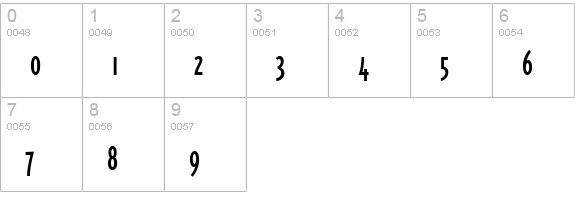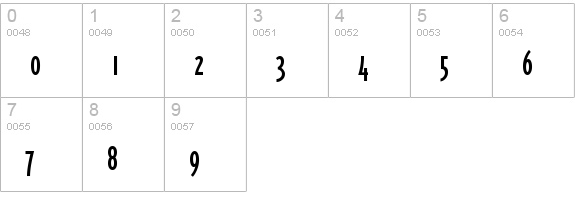
TriplexConRegOldstyle Regular Font Details
TriplexConRegOldstyle Regular is the standard, neutral variant in the TriplexConRegOldstyle typeface family \xE2\x80\x94 well suited to general body text, paragraphs, and standard typographic work.
TriplexConRegOldstyle Regular is a stunning and versatile font that adds a touch of elegance and sophistication to any design project. Its classic and timeless design makes it perfect for a variety of applications, including branding, editorial design, packaging, and more. The TriplexConRegOldstyle Regular font features a balanced mix of clean lines and subtle curves, resulting in a harmonious and balanced typeface. The letterforms are carefully crafted, with attention to detail and precision, ensuring legibility and readability across various sizes and mediums. One of the most appealing aspects of TriplexConRegOldstyle Regular is that it is free! Yes, you read that right. This exceptional font is freely available to download at FontsMarket.com. Whether you are a professional designer or an aspiring creative, you can access this font without any cost, making it accessible to everyone. The generous availability of TriplexConRegOldstyle Regular font allows you to explore its potential and unleash your creativity without any limitations. Its versatility allows it to seamlessly blend into various design styles, from modern and minimalist to vintage and retro. With this font, you have the freedom to express your unique vision and create stunning visuals that leave a lasting impression. Whether you are designing a logo, creating a striking headline, or crafting a stylish invitation, TriplexConRegOldstyle Regular font will elevate your design to new heights. Its timeless appeal and effortless charm make it a go-to choice for designers who seek a font that stands the test of time. So why wait? Take advantage of this incredible opportunity to download TriplexConRegOldstyle Regular font for free at FontsMarket.com. Start incorporating this captivating typeface into your design projects and witness the magic it brings to your creations.